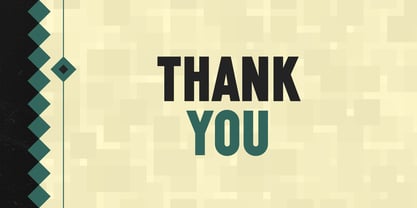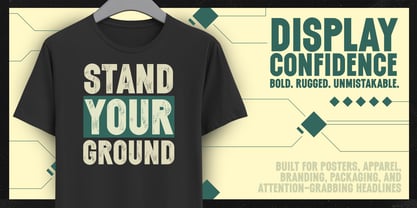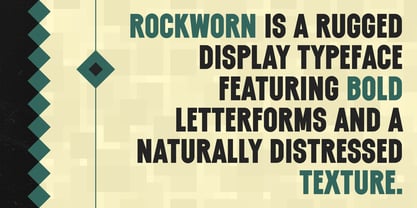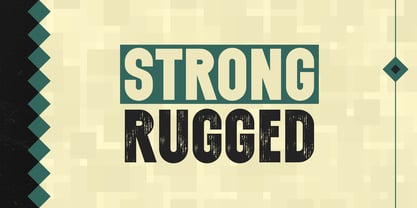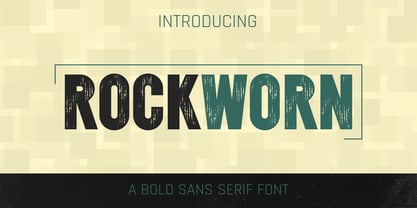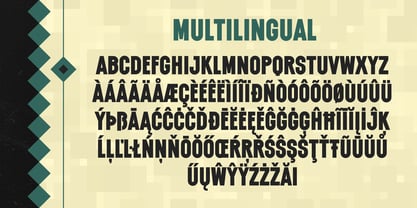
Rockworn
Rockworn is a bold condensed display typeface that showcases strong letterforms paired with a naturally distressed texture. Drawing inspiration from weathered surfaces and durable materials, it merges a commanding presence with a rugged, worn aesthetic. Ideal for headlines, posters, branding, packaging, signage, apparel, and promotional graphics, Rockworn ensures clear impact while infusing visual character through its textured finish. Its condensed proportions make it particularly effective in space-conscious layouts where impactful typography is crucial. Whether utilized for industrial branding, outdoor-themed designs, merchandise, or eye-catching headlines, Rockworn delivers strength, texture, and confidence to every project.